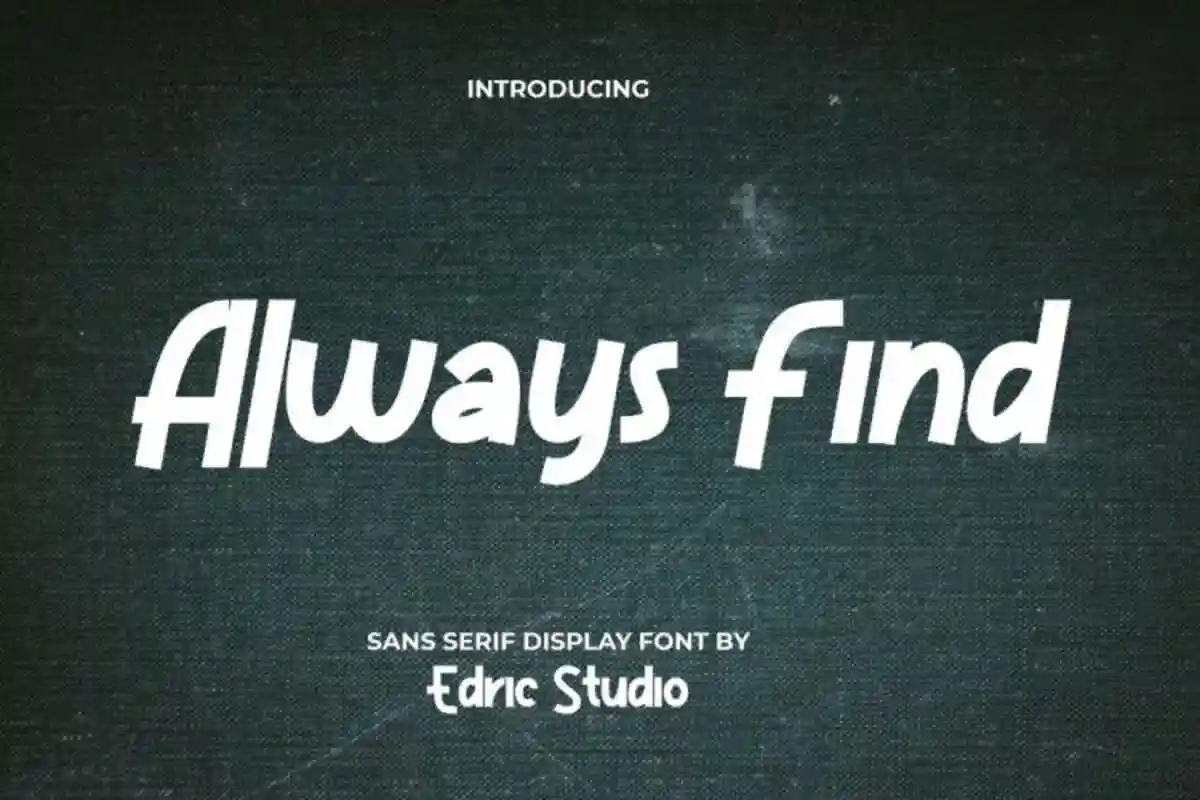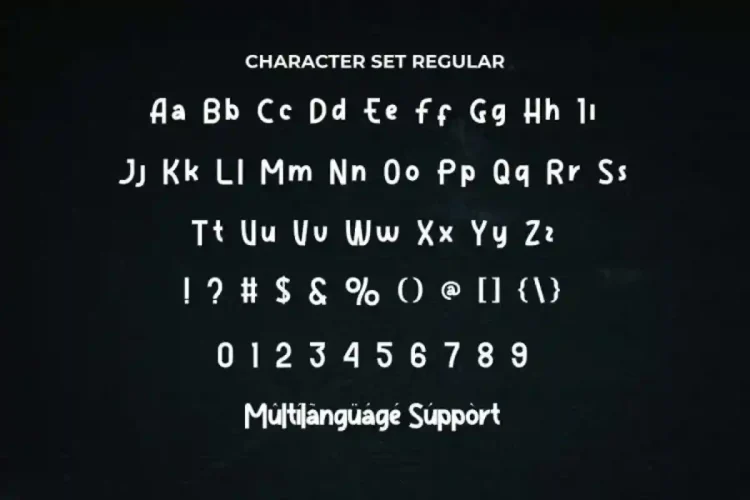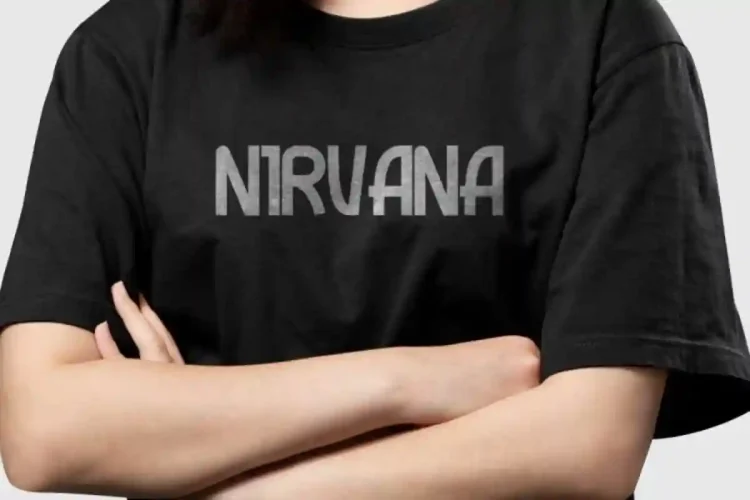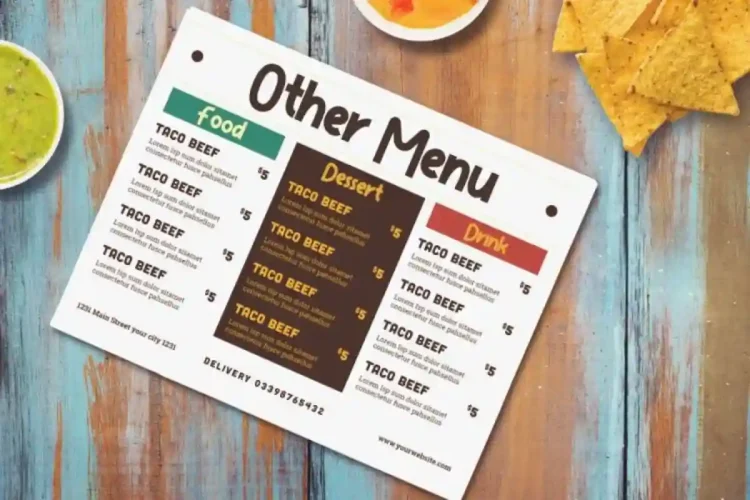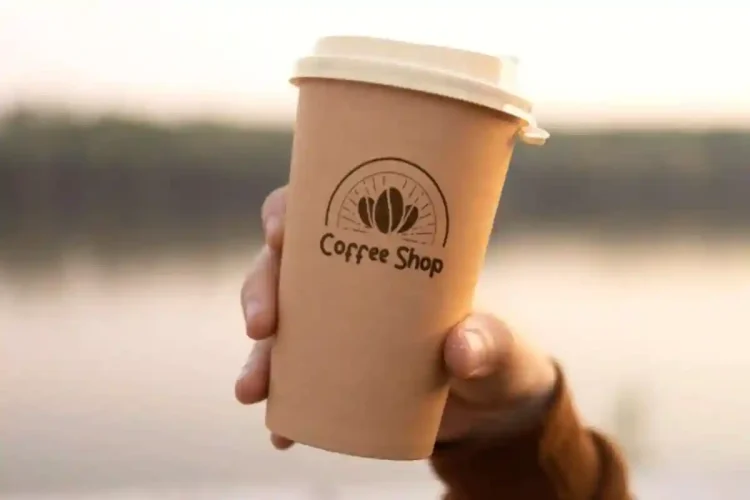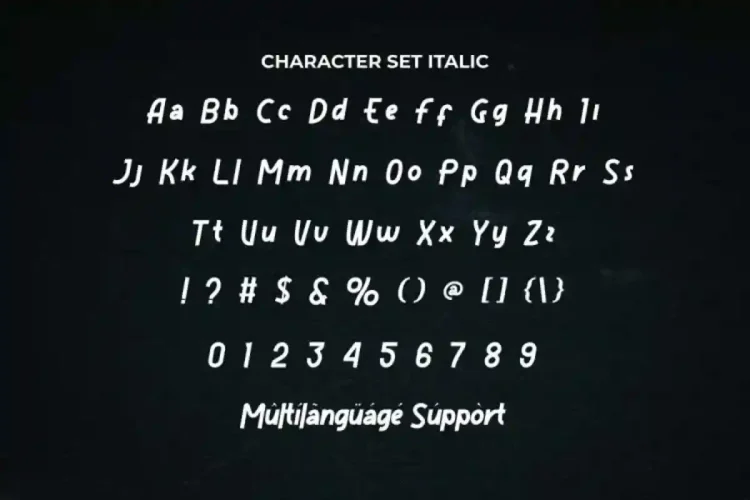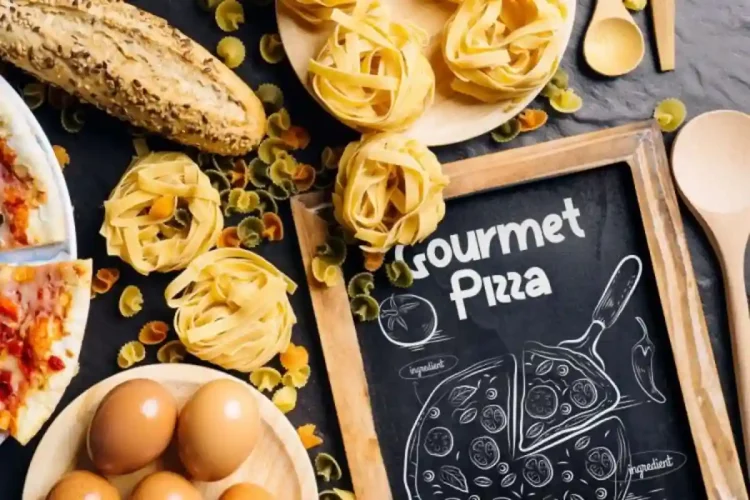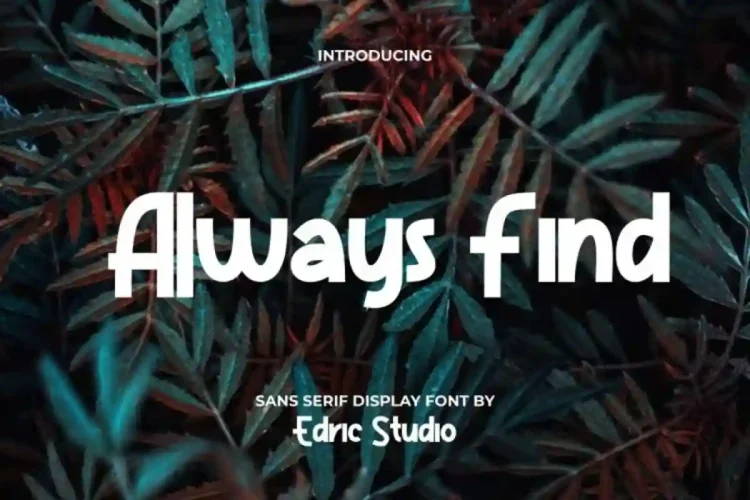
Always Find Modern Display Font
Always Find Display Font a casual serif display font exclusively crafted by EdricStudio. a lovely brush calligraphy font carefully designed to bring the beauty of real handwriting into your projects.
Always Find Display Font comes with a full set of Uppercase and Lowercase Basic Characters, Number, a large range of Punctuation and Symbol. It has a stunning characters set, perfectly managed with well spaced and kerning. Always Find Modern Display Font will be able to complement for any project (with extended license) including: brand logo, brochure, headline, poster, product packaging, screen print, signage, stationary, etc.